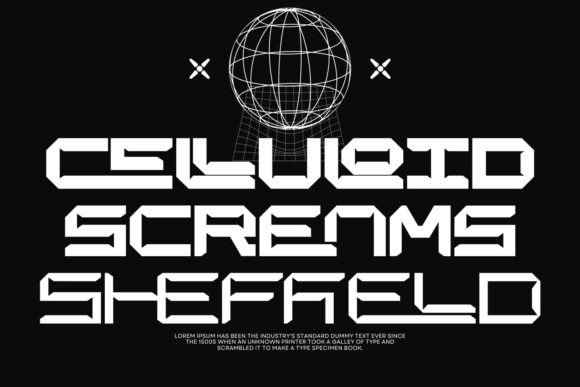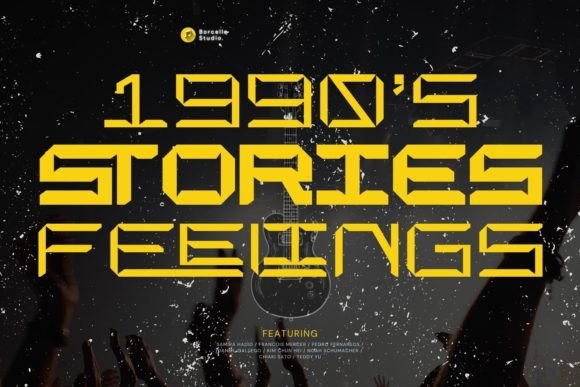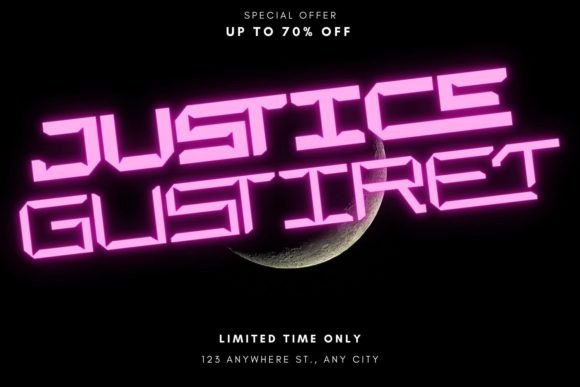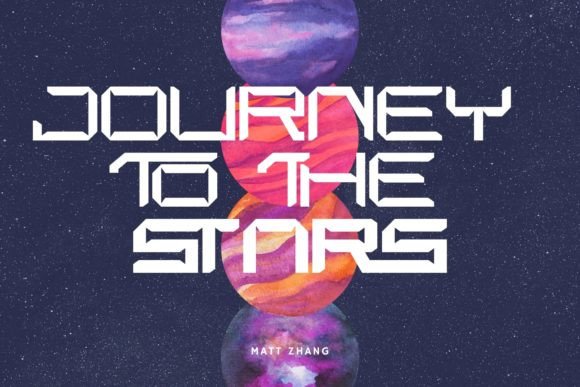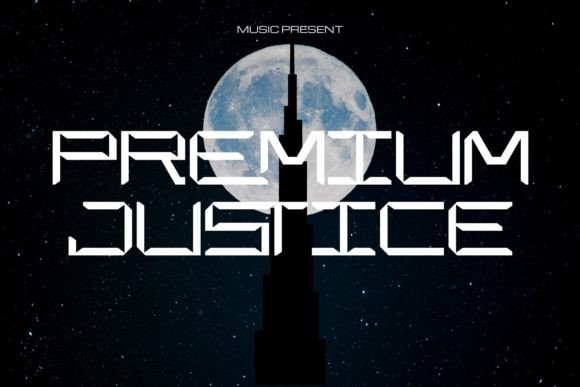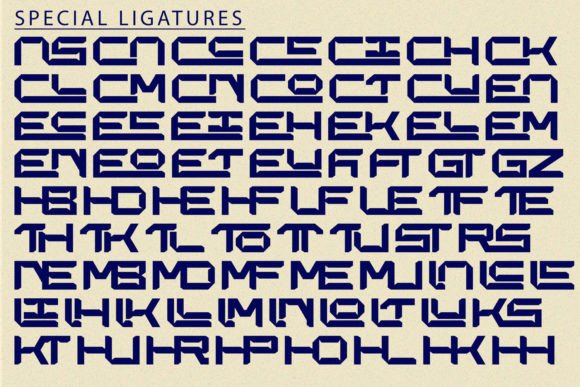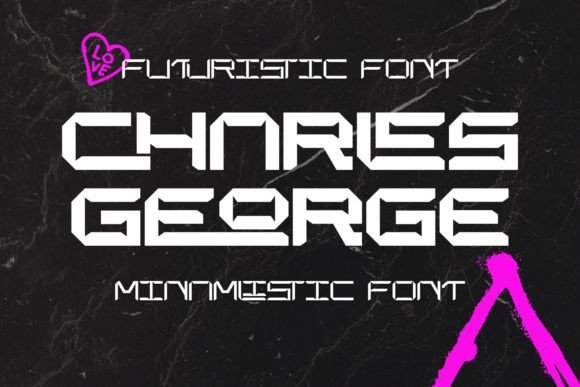
Introducing Charles George Font: The Ultimate Modern Display Font for Cyberpunk Designs
In the world of typography, fonts play a crucial role in bringing designs to life. For designers and crafters looking to create unique, hi-tech, and futuristic designs, Charles George Font is the perfect addition to their toolkit. This modern and futuristic display font is specifically designed to help you create stunning cyberpunk designs that will leave a lasting impression.
What Makes Charles George Font Stand Out?
Charles George Font is not just another ordinary font. Its modern and sleek design makes it perfect for creating futuristic and hi-tech designs. The font’s unique characteristics and features make it an ideal choice for designers who want to add a touch of innovation and creativity to their work.
Key Features of Charles George Font
- Modern and Futuristic Design: Charles George Font boasts a modern and futuristic design that will instantly elevate your designs.
- PUA Encoded: The font is PUA encoded, which means you can access all the glyphs and ligatures with ease, giving you more creative freedom.
- Unique Hi-Tech Look: The font’s unique design elements make it perfect for creating hi-tech and cyberpunk designs that will stand out from the crowd.
How Charles George Font Can Elevate Your Designs
Adding Charles George Font to your designs can instantly make them come alive. The font’s modern and futuristic design elements can add a touch of sophistication and innovation to your work. Whether you’re working on a logo, brochure, or website, Charles George Font can help you create a unique and memorable design.
Tips for Using Charles George Font Effectively
To get the most out of Charles George Font, here are some tips:
- Use it for Headings and Titles: Charles George Font is perfect for headings and titles, where you want to make a bold statement.
- Experiment with Different Sizes and Colors: Don’t be afraid to experiment with different sizes and colors to create a unique look.
- Pair it with Other Fonts: Charles George Font can be paired with other fonts to create a unique and harmonious design.